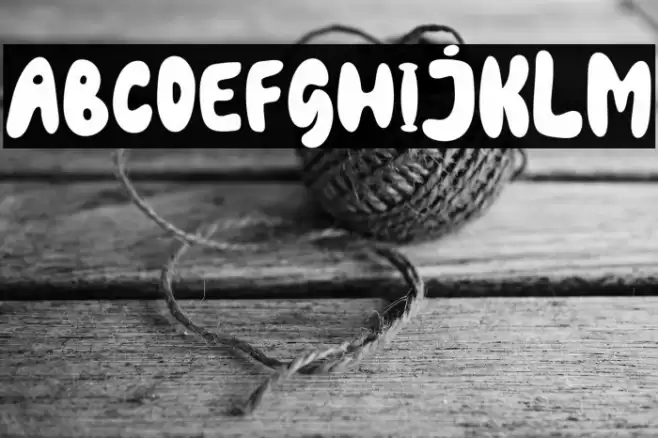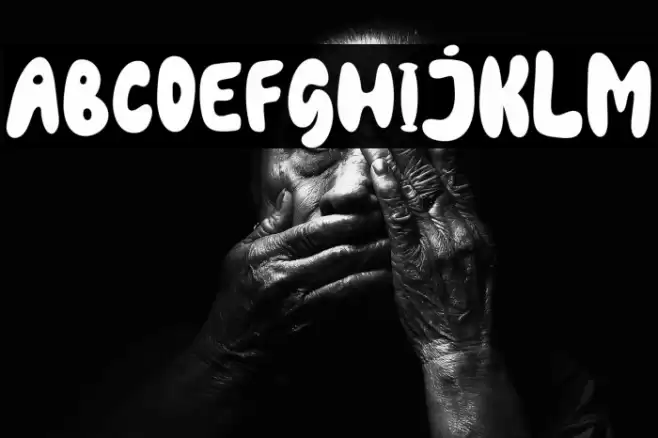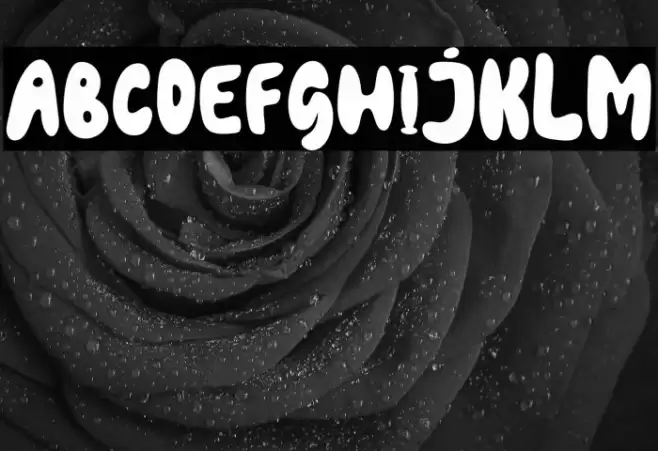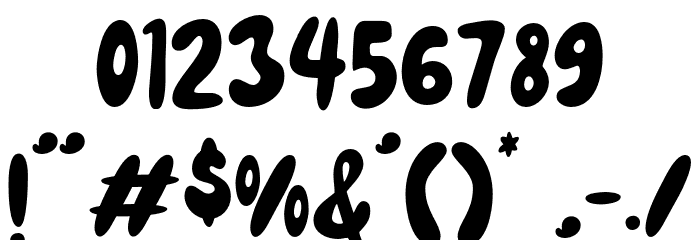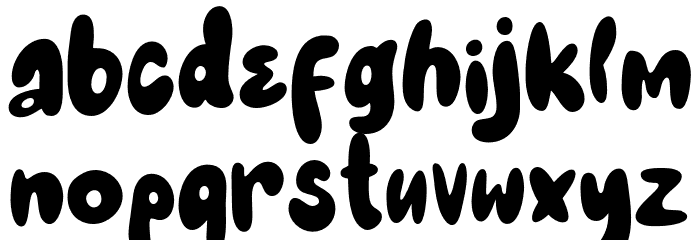
Master Lemon Regular Font
Master Lemon Regular Description
This font features a bold, playful style with rounded, bubbly characters that convey a sense of fun and creativity. The letters are thick and have a consistent weight throughout, giving them a strong presence on the page. The rounded edges and slightly irregular shapes add a whimsical touch, making it ideal for projects that require a lively and informal tone. The numbers and special characters maintain the same playful aesthetic, ensuring consistency across different types of content. This font is particularly well-suited for designs that aim to capture attention and convey a sense of joy and spontaneity.
A bold, playful font with rounded, bubbly characters ideal for fun and creative projects from Uncategorized fonts.
- Font: Master Lemon Regular
- Proposed Projects: Children's books, party invitations, playful branding, and casual social media graphics.
- Overall Style: Playful, Whimsical